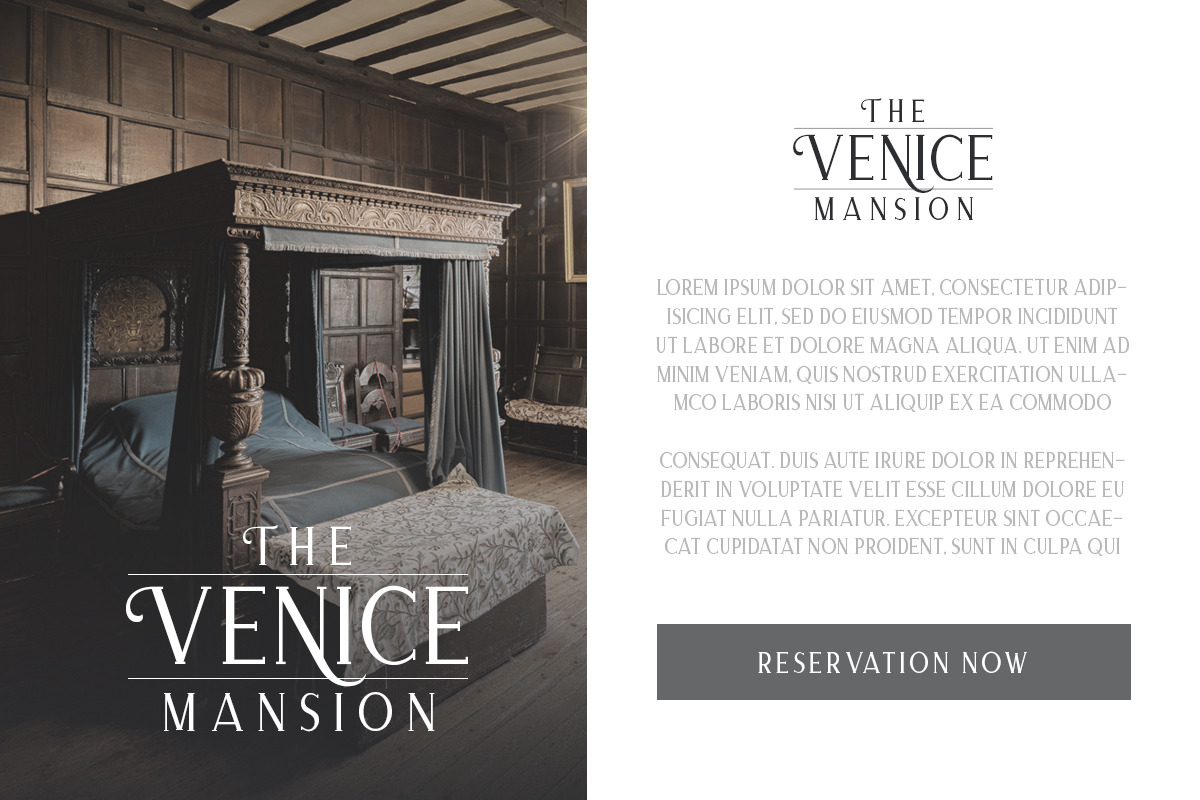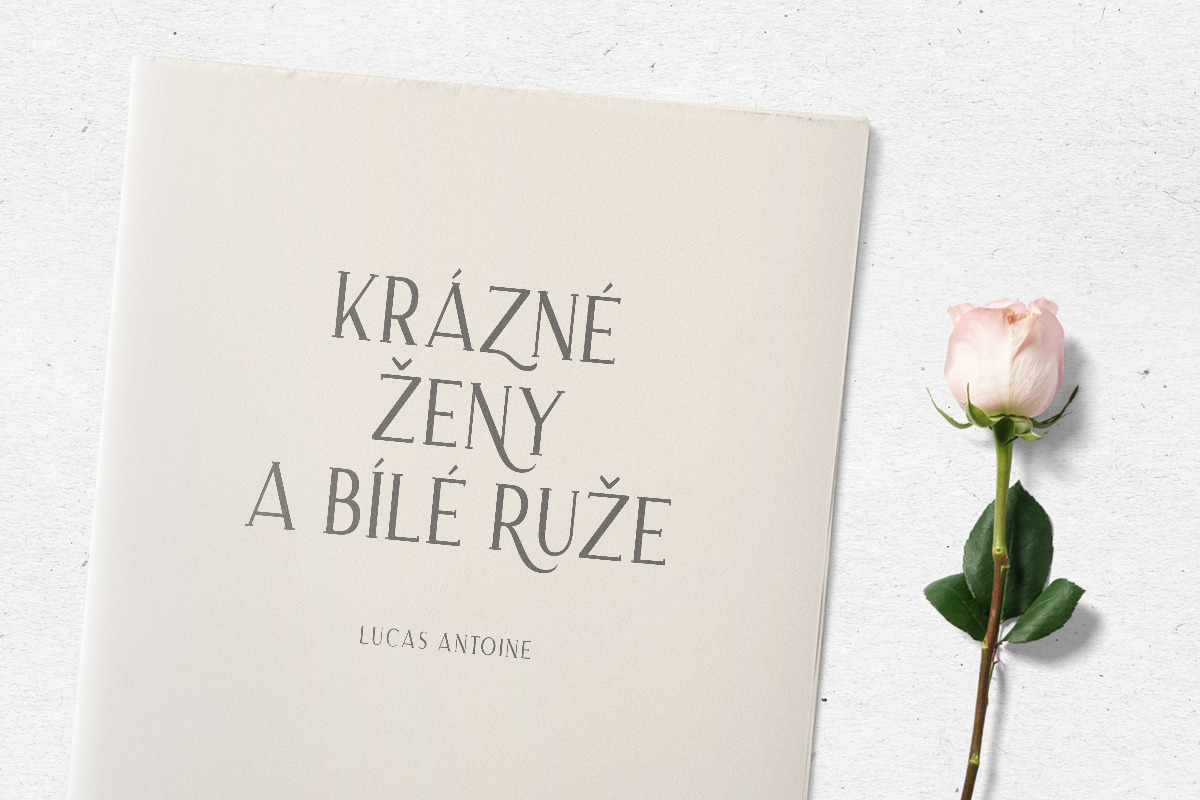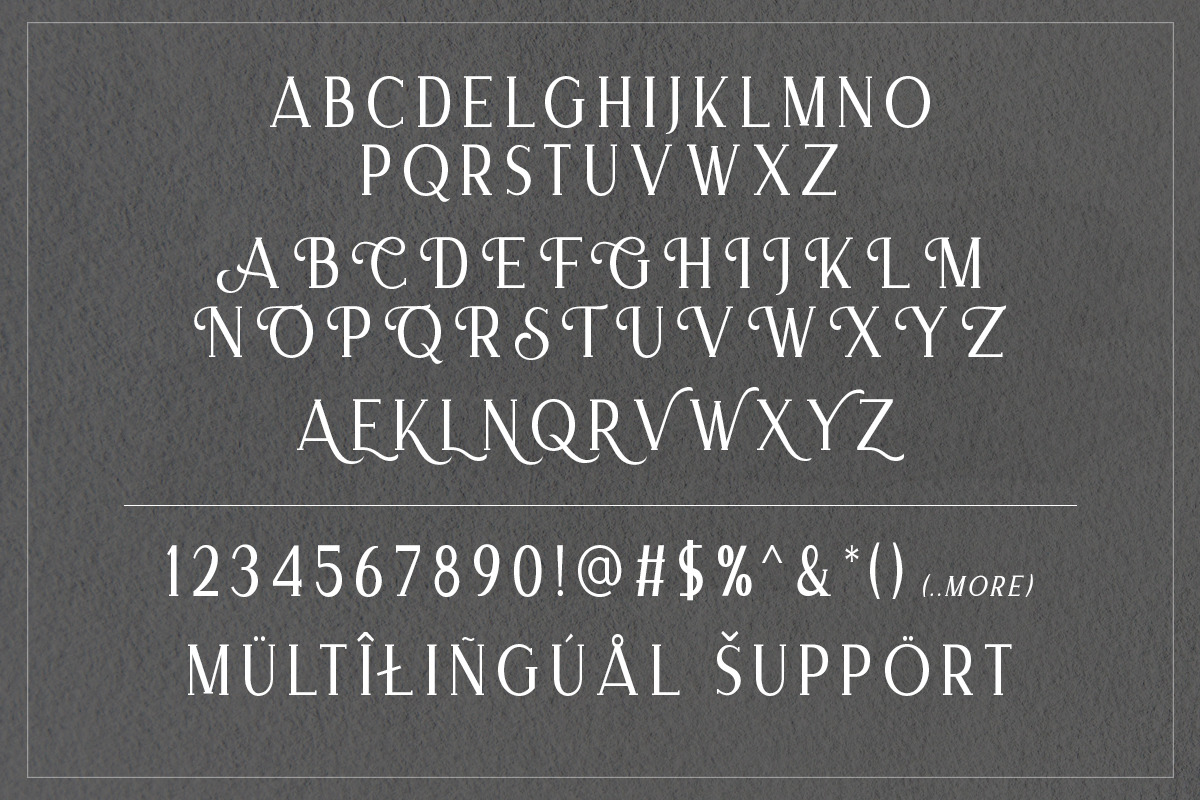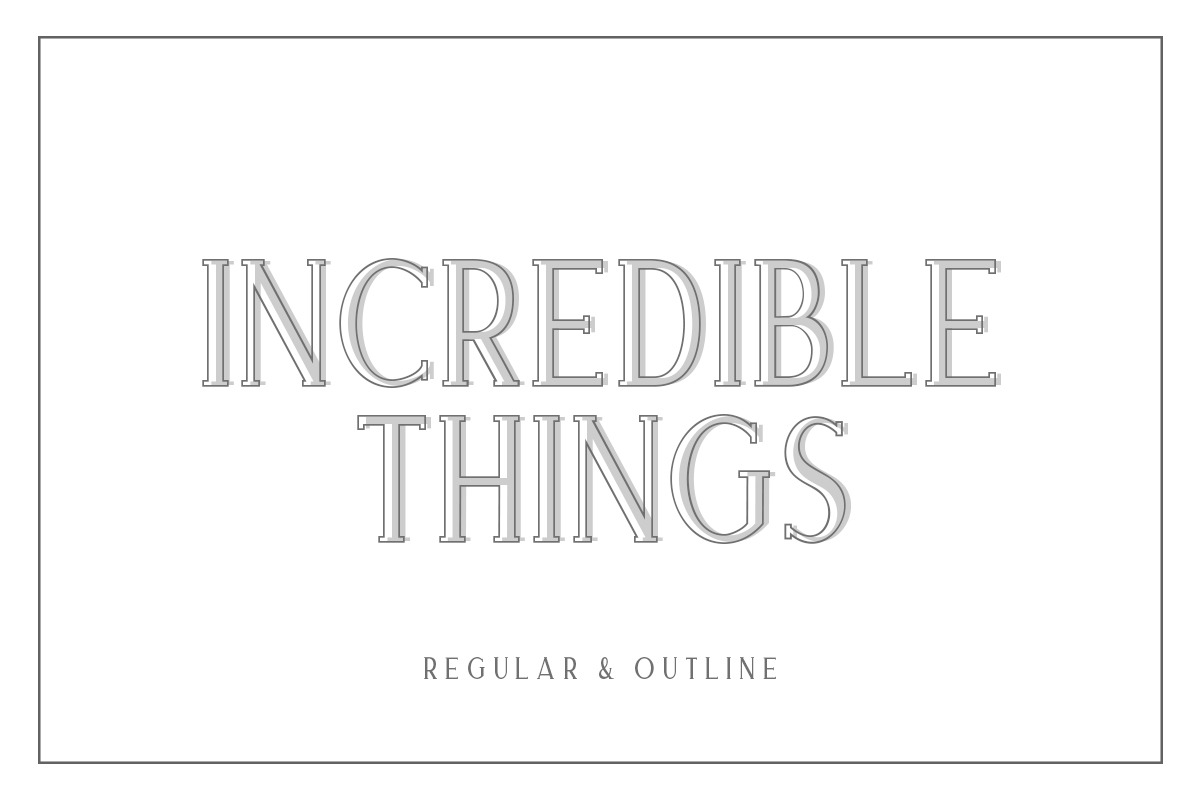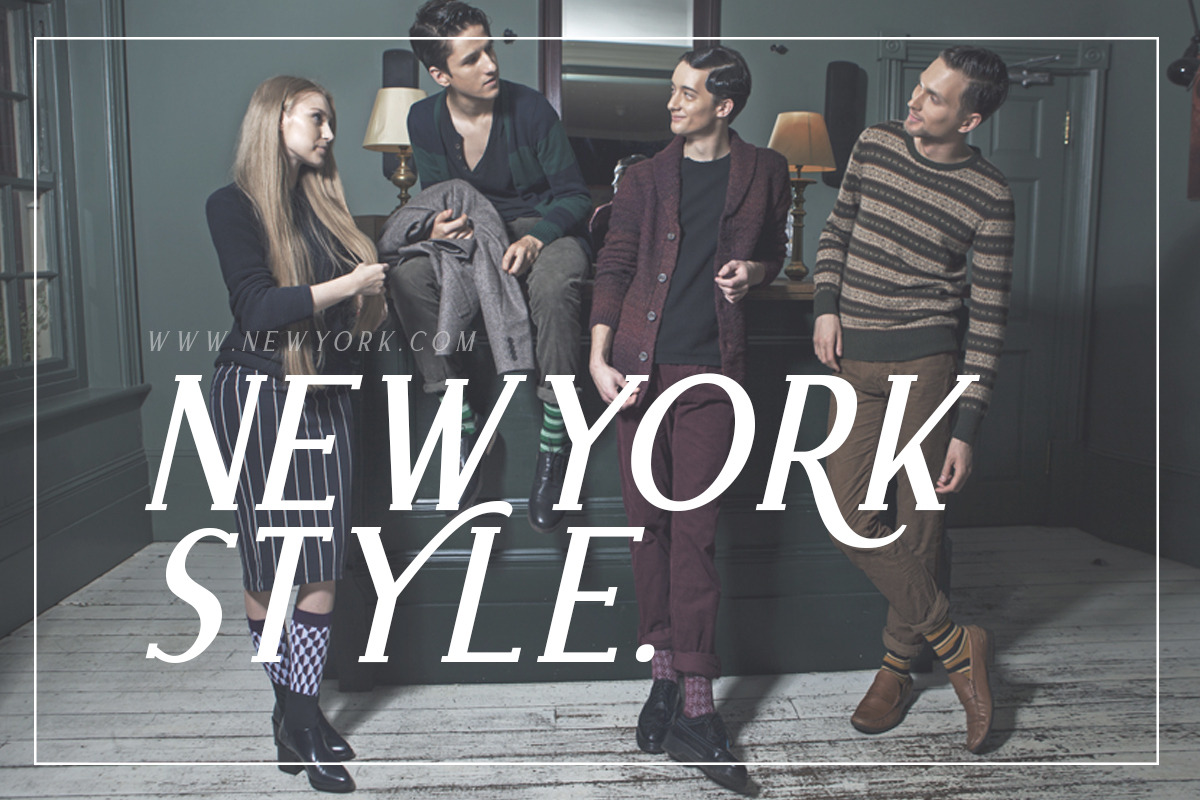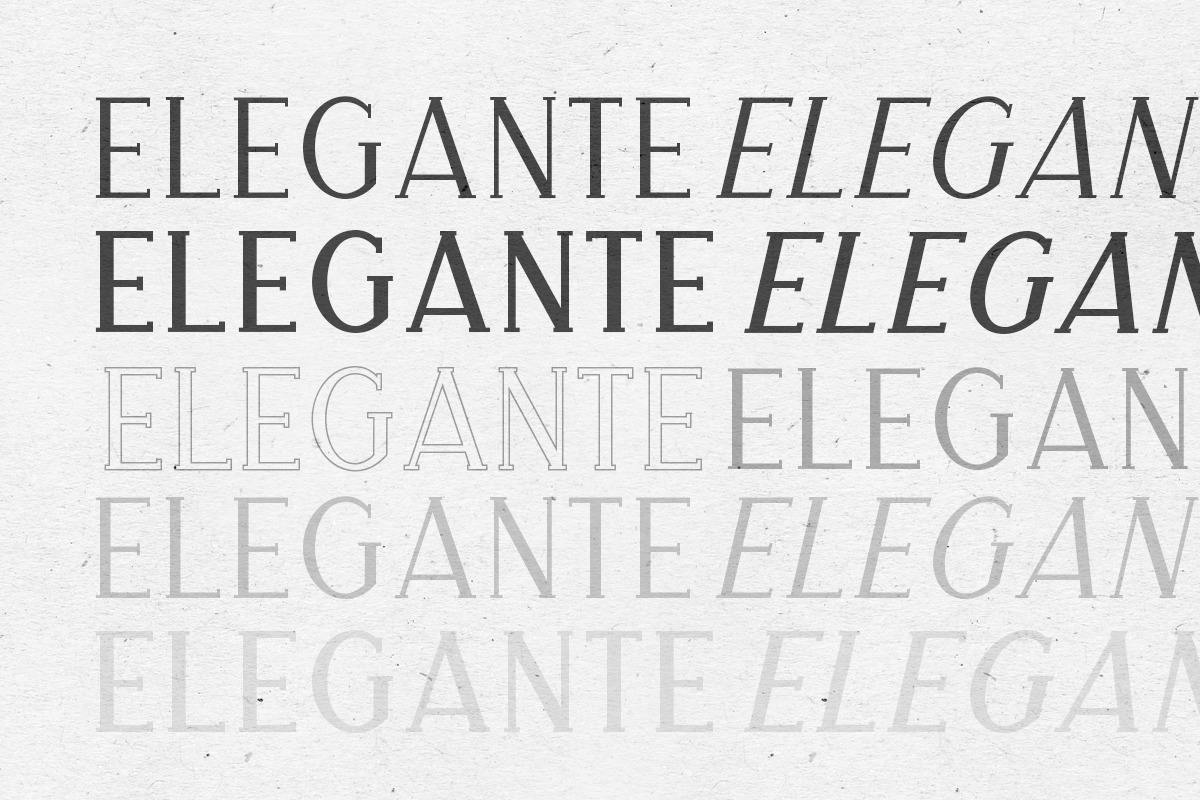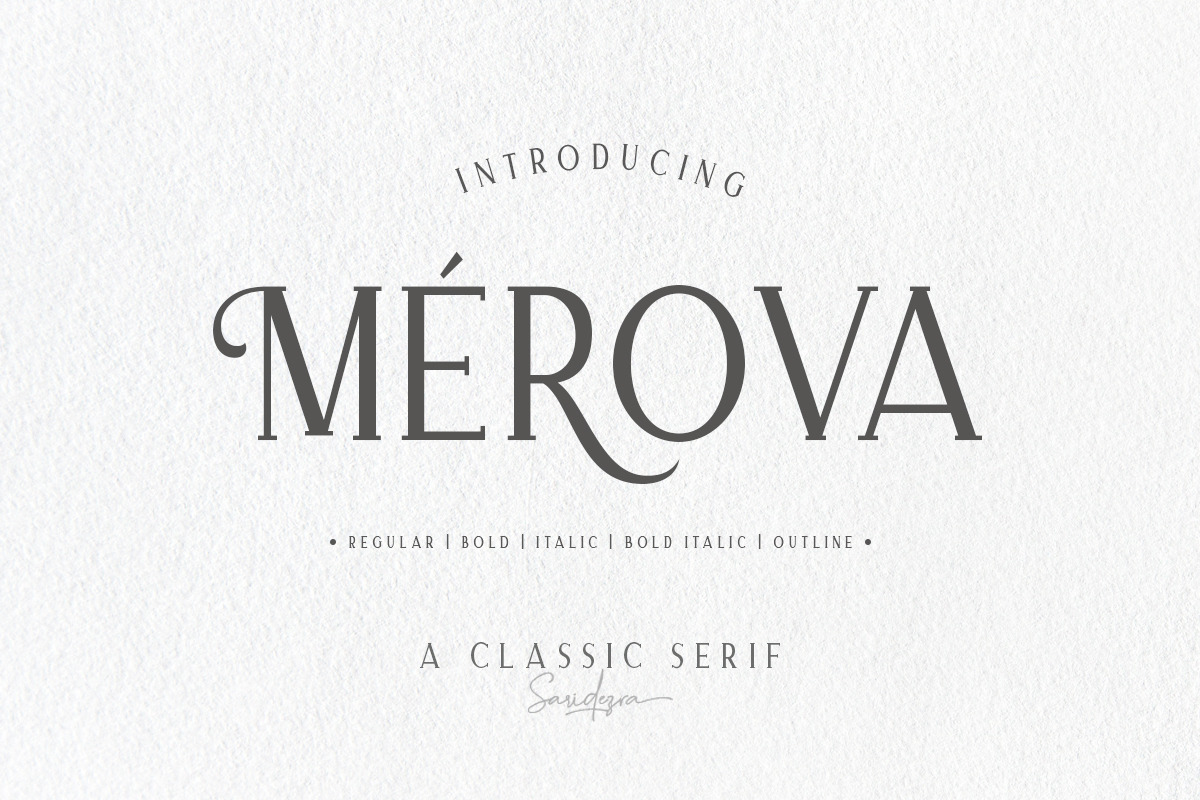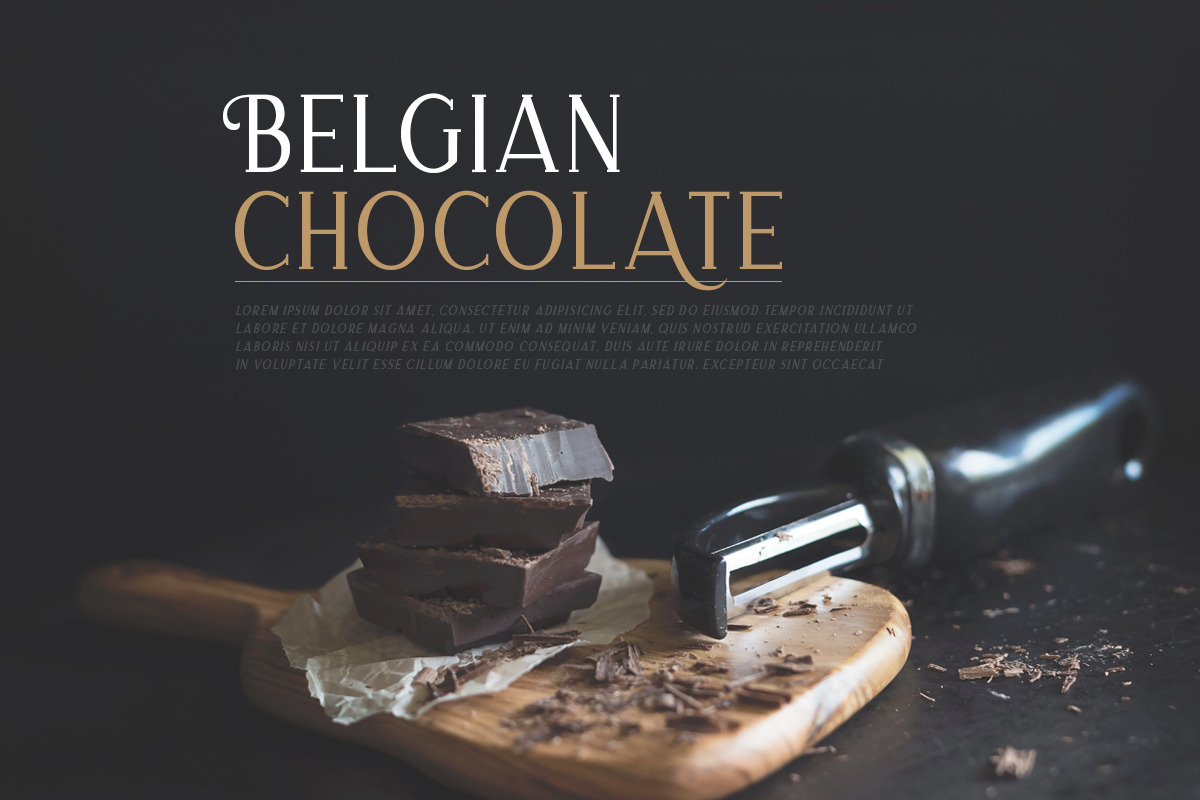
Merova - Classic Serif (5 Fonts)
Introducing, brand new serif, Merova - a classic serif with alternates!
Merova is a classic and elegant serif with many style. Merova contains a bunch of alternates for each characters that will make your presentation or logo even more stunning and stand out! Merova also support Multi Language. and already PUA Encoded!
- All Uppercase
- Multi language
- Alternates for each characters
- Merova Regular/ Italic (OTF/TTF), the elegant.
- Merova Bold/ Bold Italic (OTF/TTF), the strongest.
- Merova Outline/ (OTF/TTF), the fancy!